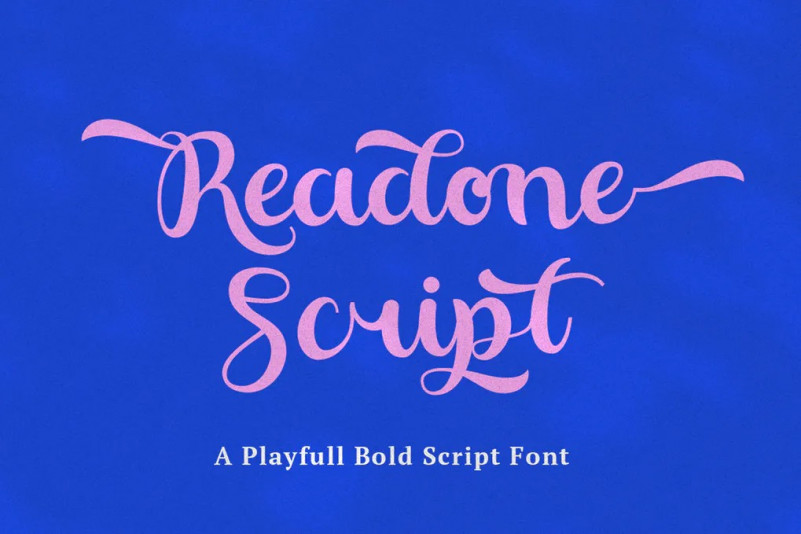
Readone Font
Readone – a new fresh & modern bold script with a calligraphy style, a dancing baseline! So beautiful on invitation like greeting cards, branding materials, business cards, quotes, posters, and more!